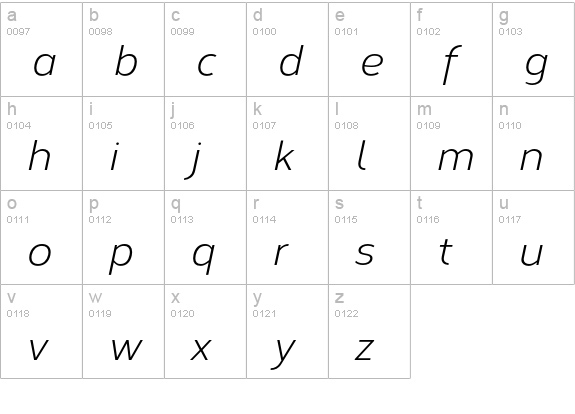
Corbert Italic is a distinctive, italic variant in the Corbert typeface family \xE2\x80\x94 well suited to design and typography projects.
Corbert Italic is a modern and stylish font that exudes sophistication and elegance. With its slanted and graceful letterforms, this typeface adds a touch of class to any design project. The delicate curves and precise spacing of Corbert Italic make it ideal for conveying a sense of refinement and professionalism. What sets Corbert Italic apart is not only its aesthetic appeal but also its accessibility. This exquisite font is available for free download at FontsMarket.com, making it a valuable resource for designers, artists, and creatives looking to elevate their work without breaking the bank. Whether you're working on a branding project, a website design, or a creative campaign, Corbert Italic is sure to make a lasting impression with its timeless charm and versatility. Embrace the beauty and functionality of Corbert Italic today by downloading it for free at FontsMarket.com. Elevate your designs with this elegant and sophisticated font that is sure to leave a lasting impression on your audience.